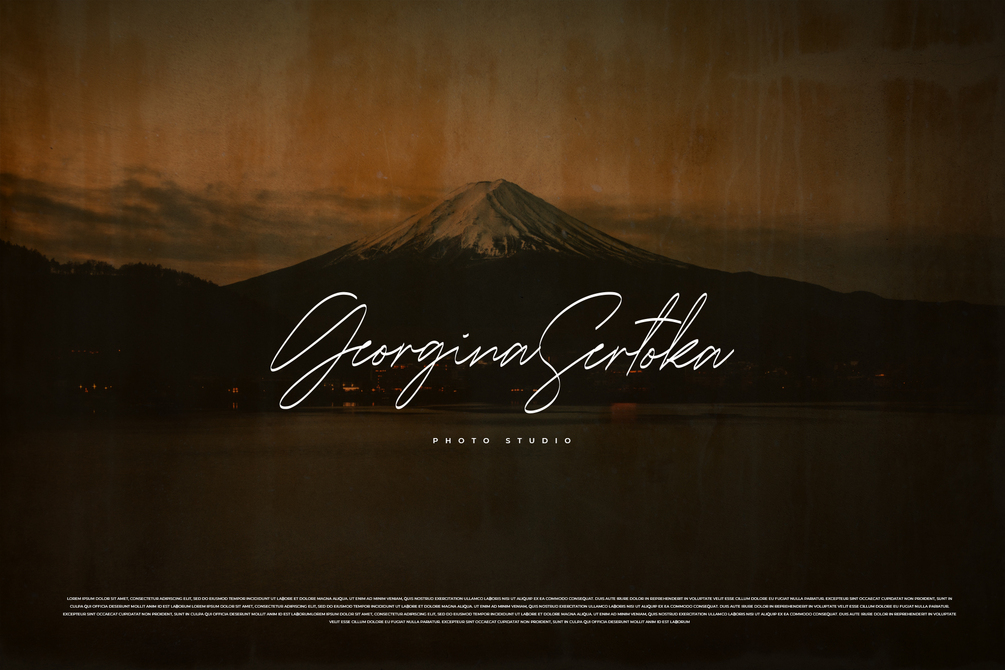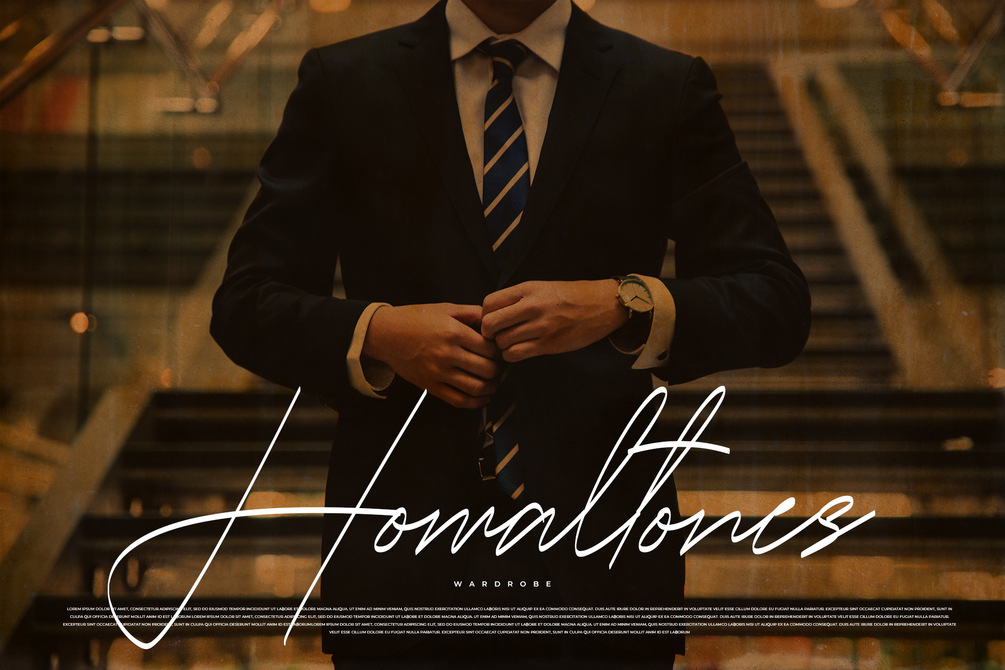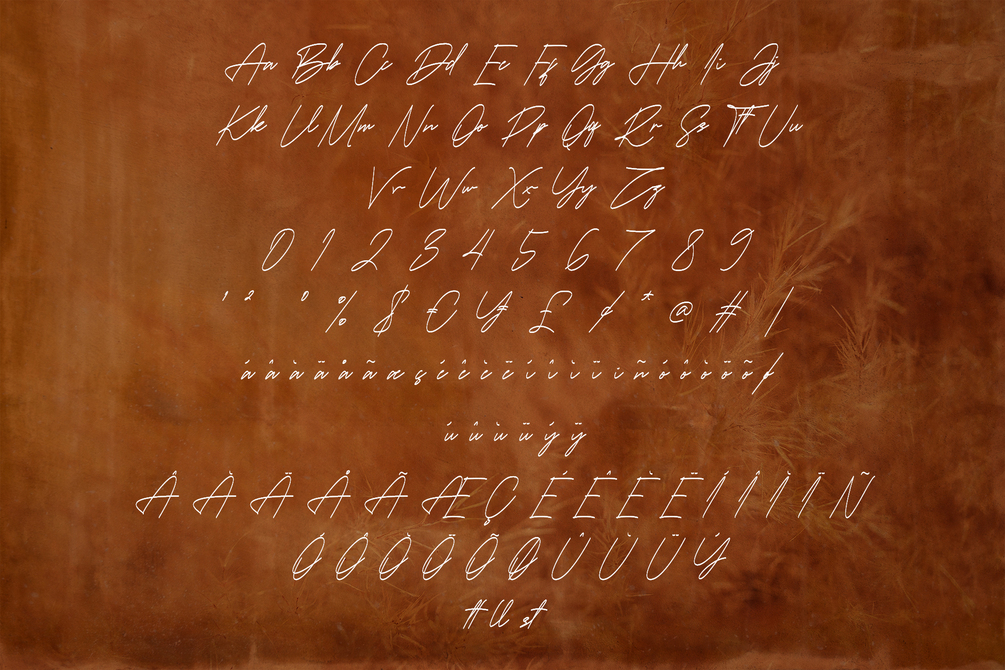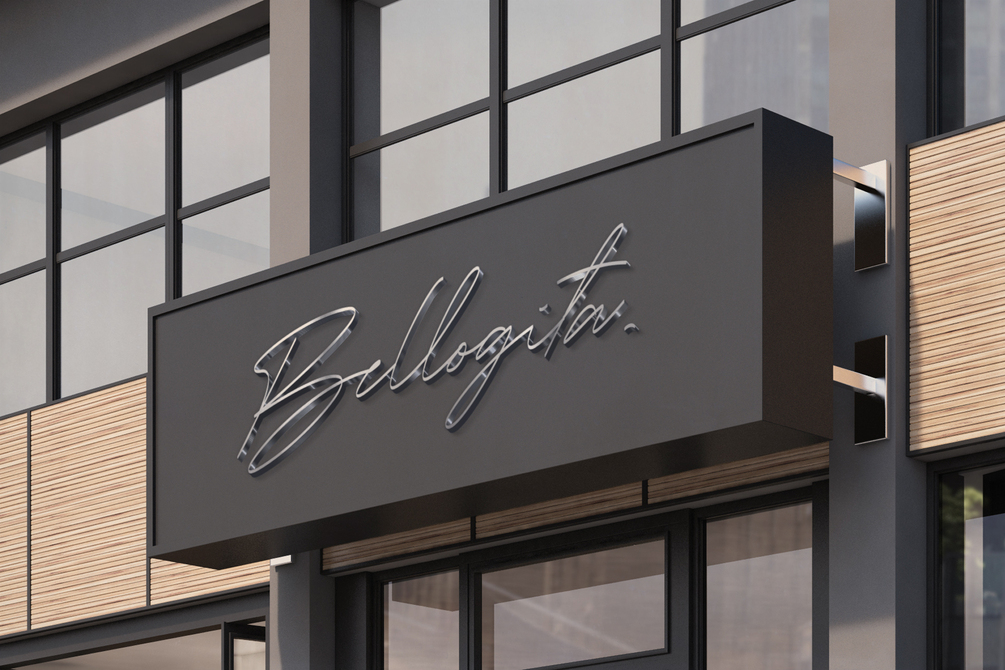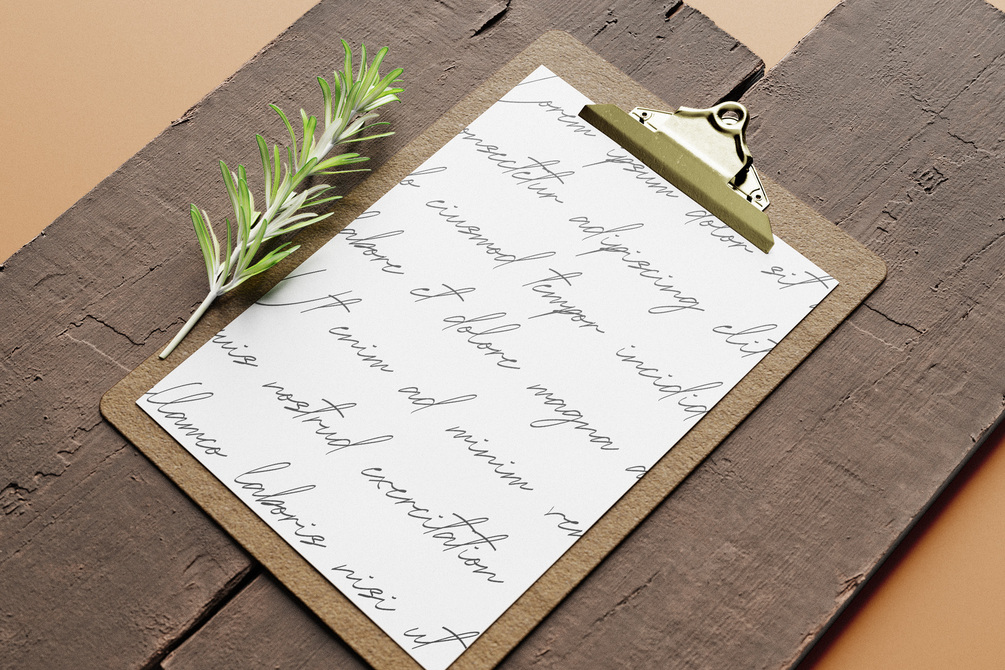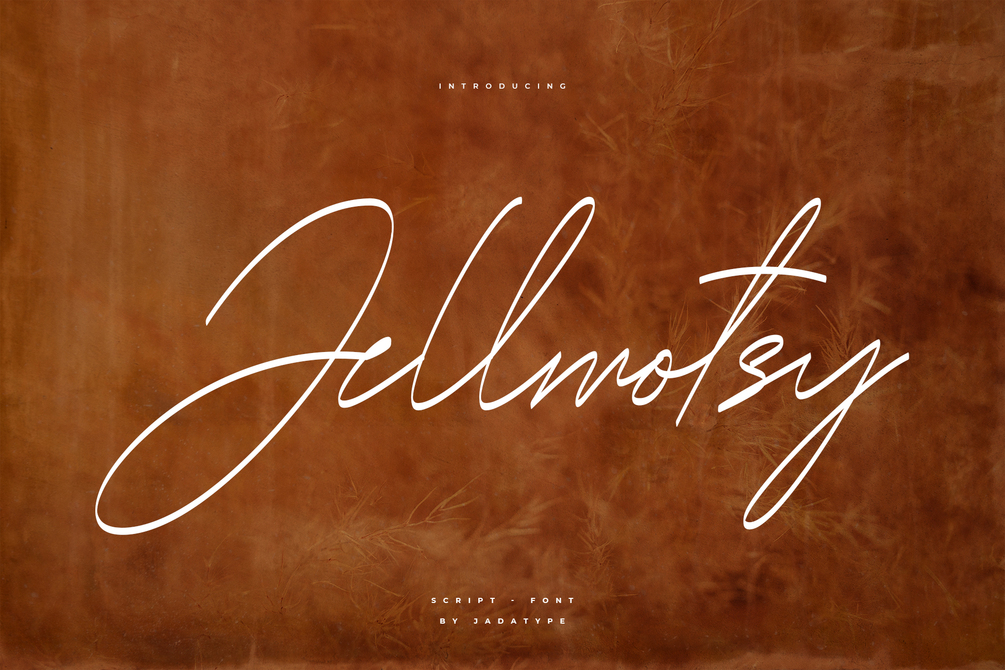
Jellmotsy Font
Jellmotsy is a font with a stylish modern script. suitable for photography, social media, music cover, branding, products, handwritten, and so on. contains standard English letters, numbers, punctuation, and several accents that support multilingualism.